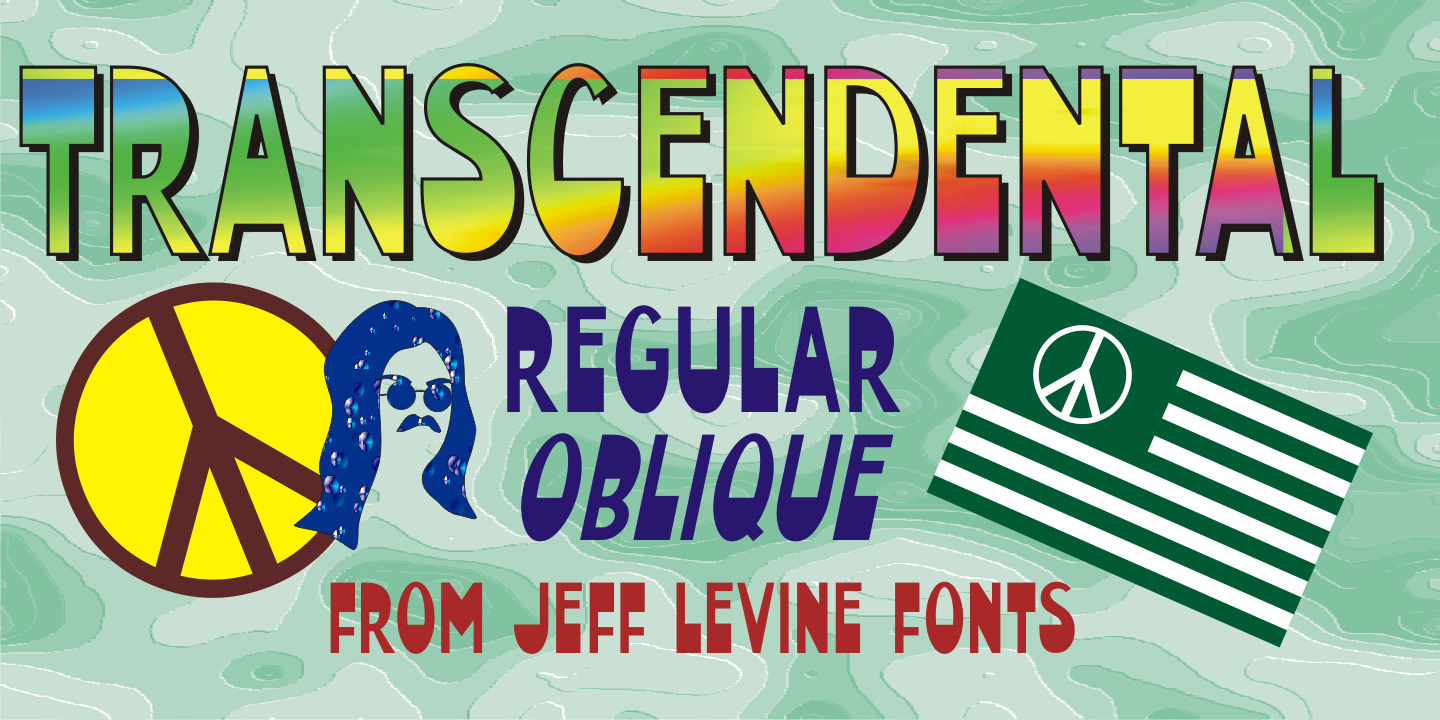
The Transcendental JNL Font is perfect for spiritual book covers, meditation center branding, yoga studio materials, metaphysical publications, wellness retreat signage, inspirational quote graphics, holistic healing materials, philosophical texts, mindfulness app designs, and transformational workshop posters.
What makes the Transcendental JNL Font exciting is its profound ability to elevate ordinary text into spiritual and philosophical realms through ethereal letterforms that inspire contemplation and inner reflection. This enlightening typeface features flowing curves, mystical proportions, and transcendent character shapes that convey wisdom, serenity, and spiritual awakening. Each letter appears to channel divine inspiration, creating an atmosphere of peace and higher consciousness that resonates deeply with seekers of truth and enlightenment.
The Transcendental JNL Font family includes regular, light, bold, and ethereal versions, along with spiritual symbols, sacred geometry elements, and mystical ornaments that enhance its transformational appeal across various consciousness-expanding design applications.
Whether you're creating spiritual brand identities or designing inspirational content, Transcendental JNL Font Free Download delivers profound visual impact and authentic spiritual resonance. Its divinely crafted letterforms ensure clear readability while maintaining that essential transcendent quality that speaks to souls seeking higher understanding. The font's sacred features include contextual alternates, mystical ligatures, and spiritual variations that automatically create harmonious, enlightened typography. Spiritual teachers and consciousness-based brands consistently choose this font for projects requiring genuine spiritual authenticity and transformational energy. The Transcendental JNL Font transforms mundane text into sacred expressions of universal truth, making it an essential tool for any designer's spiritual typography sanctuary.